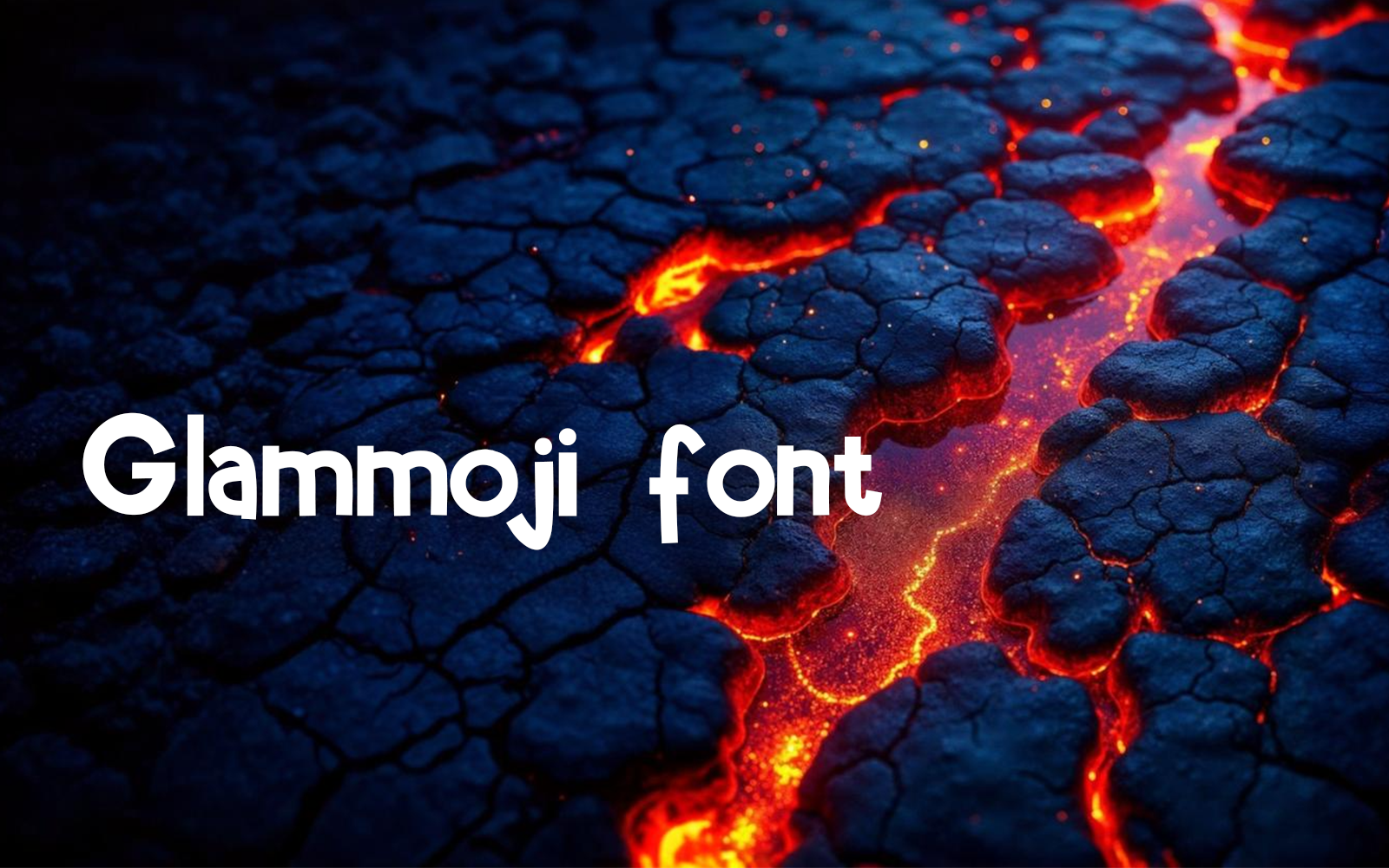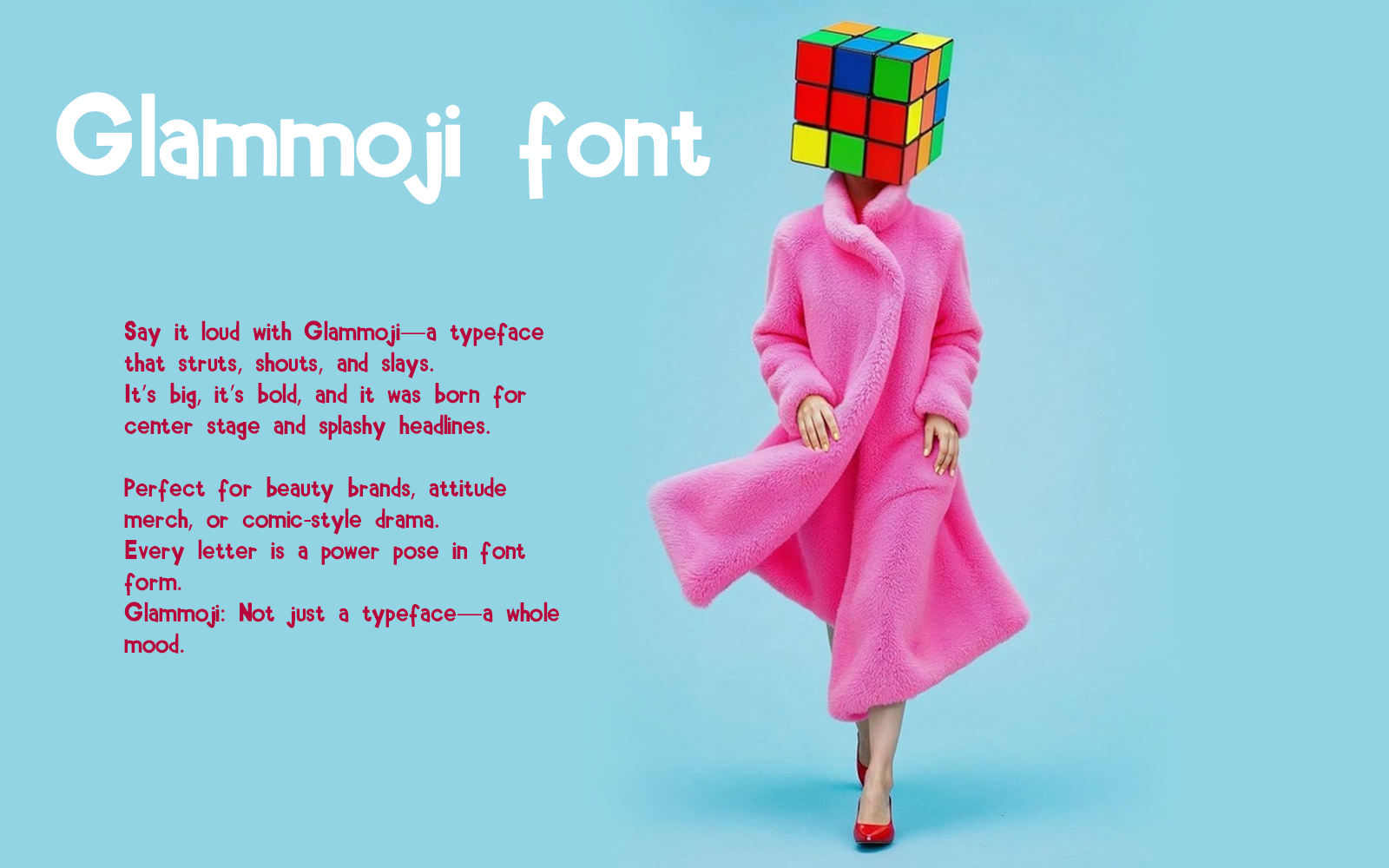
Say it loud with Glammoji—a typeface that struts, shouts, and slays.
It’s big, it’s bold, and it was born for center stage and splashy headlines.
Perfect for beauty brands, attitude merch, or comic-style drama.
Every letter is a power pose in font form.
Glammoji: Not just a typeface—a whole mood.